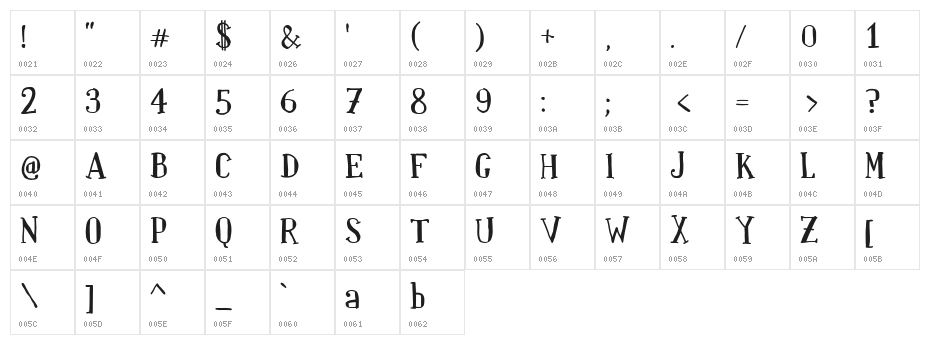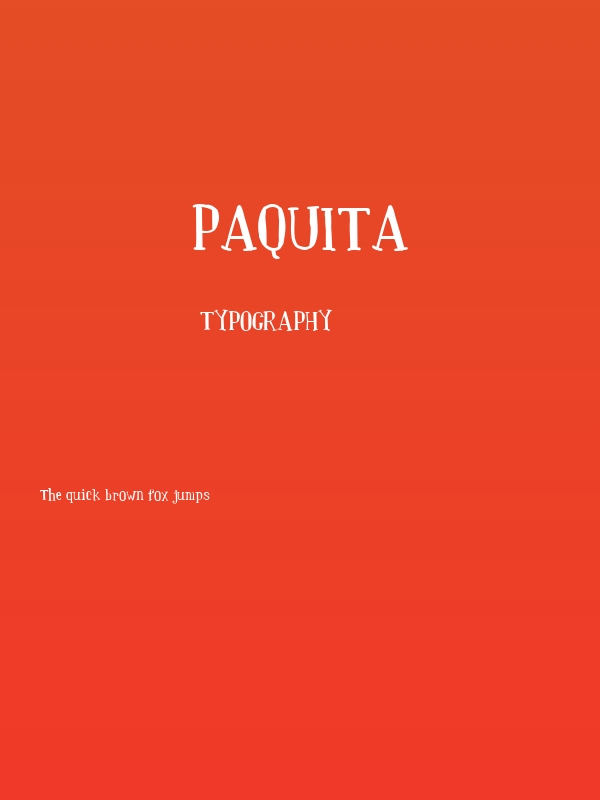
Paquita Font
Paquita Description
This font features a playful and whimsical design with a hand-drawn aesthetic. The characters have a slightly uneven and organic appearance, giving them a charming and approachable feel. The uppercase letters are bold and slightly condensed, while the lowercase letters maintain a consistent style with a touch of flair, particularly in the descenders and ascenders. The numbers are clear and legible, matching the overall style of the alphabet. Special characters are creatively designed, adding to the font's unique personality. This font is ideal for projects that require a fun and informal touch, such as children's books, greeting cards, or playful branding.
| Overall Style | Whimsical |
| Use Case | Headlines, Logos, Informal text |
| Proposed Projects | Children's books, greeting cards, playful branding, informal invitations. |